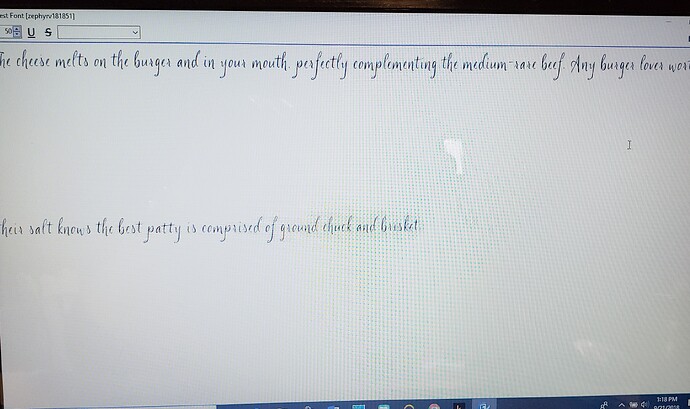
I am new to FontCreator. When I first started my font, I could test it in the Test TTF/OTF window and it looked normal. Now, when I test my font, there is too much space between lines, so much so that if I print a page of the font, only four lines of small text appear on each page.
I’m wondering if I accidentally changed a setting somewhere in the font making process.
I attached a picture of what my font looks like when I test it in Test TTF/OTF.
Probably one or more glyphs have contours that are positioned way too high or way too low.
Select Information from the Font menu to see the Y Minimum and Y Maximum values. You can double-click such entry to open the specific glyph edit window.
What is the normal position? And what would I do to change it?
What is inside the normal? And can you explain how I change the high or low contours?
It is normal to keep all glyph contours within the WinAscent and WinDescent lines.
If you open the glyph edit window, then double-click the Y Maximum and Y Minimum lines in the Font Information dialogue it will take you directly to the problematic glyphs. Edit the glyphs to delete unwanted components, or move or edit the glyphs to use less vertical space. Recalculate the glyph metrics to fix the issue in Font Properties, Metrics, Calculate.
Keeping ascenders and descenders within the bounds of WinAscent and WinDescent avoids clashes even if line-spacing is set to 100% in word-processor or DTP applications. The default (Single) line-spacing should normally be at least 120% to make script faces more legible, but users can reduce line-spacing below 100% if they wish. The font designer should assume that single line-spacing will be used.
What’s considered a standard for the default line-spacing btw? You said 120%, but I’m guessing that’s at the lower side, right?
No. It is what I use for many of my body text fonts, but it depends on the font design. Gabriola has huge swashes, so the default line-spacing for single-spaced text is over 180% If used without the swashes it works fine with much less line-spacing.
- Georgia = 113.60%
- Arial = 114.67%
- Times New Roman = 114.94%
- Park Avenue BT = 120.08%
- Verdana = 121.60%
- Palatino Linotype = 134.94%
- Odana = 150.13%
- Gabriola = 184.27%
Bhikkhu, that script font in your illustration above is gorgeous! Is it one of your creations?
It is not my creation, but I have edited a version of Great Vibes as Mahakampa